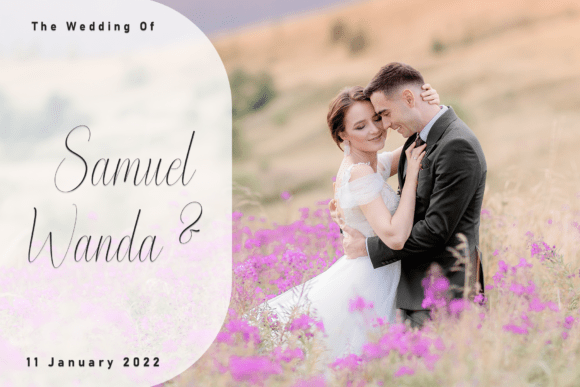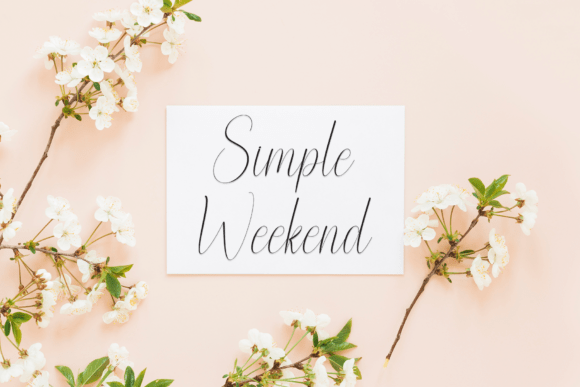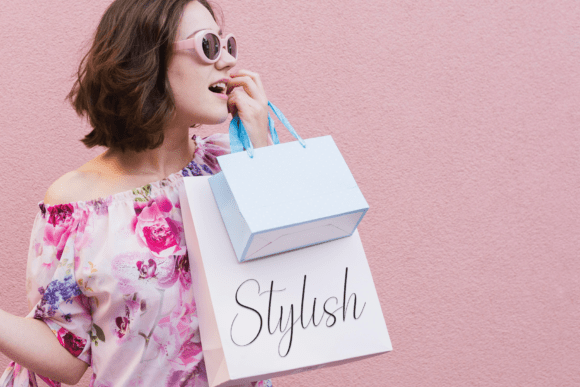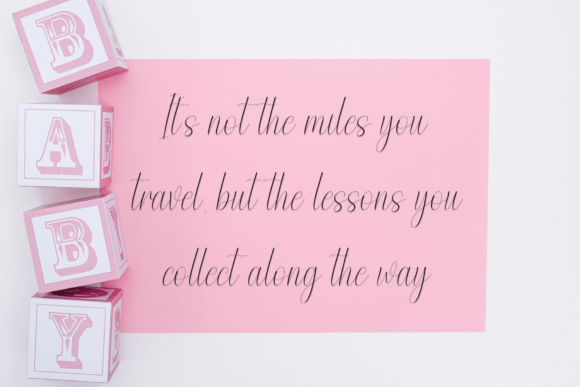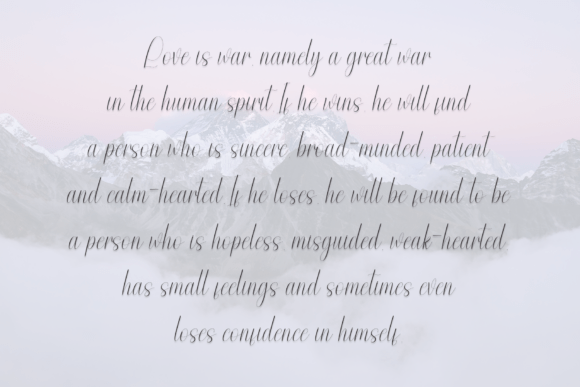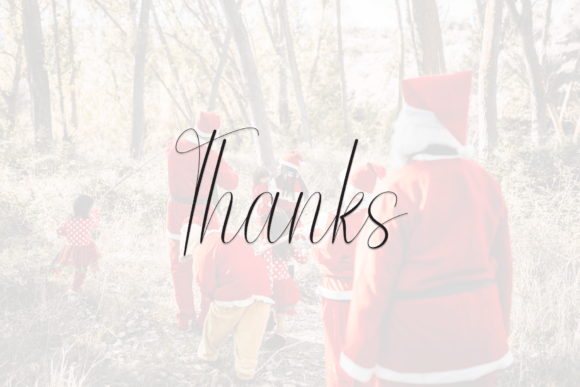
Introduction to Santa Adventaged Font
Have you ever been stuck in a creative rut, searching for the perfect font to bring your design project to life? As a designer, you know that the right font can make all the difference in conveying the tone and personality of your work. I still remember the moment I stumbled upon the enchanting Santa Adventaged Font – a delightful handwritten display font that embodies the warmth and friendliness of the holiday season.
As I delved deeper into the font, I was immediately drawn to its unique charm and playful style. The Santa Adventaged Font is a treasure trove of creative possibilities, perfect for designers looking to add a touch of whimsy to their projects. With its transparent background and high-quality design, this font is an invaluable resource for any creative endeavor.
Key Features of Santa Adventaged Font
• Unique and playful typography with a transparent background, perfect for adding a festive touch to your designs.
• Includes a range of characters, including uppercase and lowercase letters, numbers, and punctuation marks.
• Designed with a large x-height and distinctive letterforms, making it easy to read and use in a variety of settings.
Honest Review: Santa Adventaged Font
I recently came across the Santa Adventaged Font while searching for design resources for a creative project. I was immediately drawn to its playful and festive vibe, making it perfect for holiday-themed designs. The font is available for free download, which is a great bonus for designers on a budget.
Here are some things that work well with the Santa Adventaged Font:
• ✨ Unique and quirky design style that sets it apart from other fonts
• ✨ High-quality glyphs that are clear and easy to read
• ⚠️ Limited character set, which may not be suitable for extensive text-based projects
• ⚠️ Some glyphs may not be available in all font sizes, which can affect readability
Overall, I think the Santa Adventaged Font is a great addition to any designer’s toolkit. Its fun and playful design makes it perfect for creative projects, and the high-quality glyphs ensure that it looks great at any size. While it may have some limitations, I would definitely recommend it for designers looking for a unique and festive font.
Santa Adventaged Font: A High-Quality Design Resource
Tips for Getting the Most Out of Santa Adventaged Font
Common Use Cases for Santa Adventaged Font
The Santa Adventaged Font is ideal for use in creative projects, such as holiday cards, gift tags, and party invitations. It can also be used in business projects, such as marketing materials, brochures, and presentations. With its high-quality design and transparent background, this font is perfect for any project that requires a professional and creative touch.